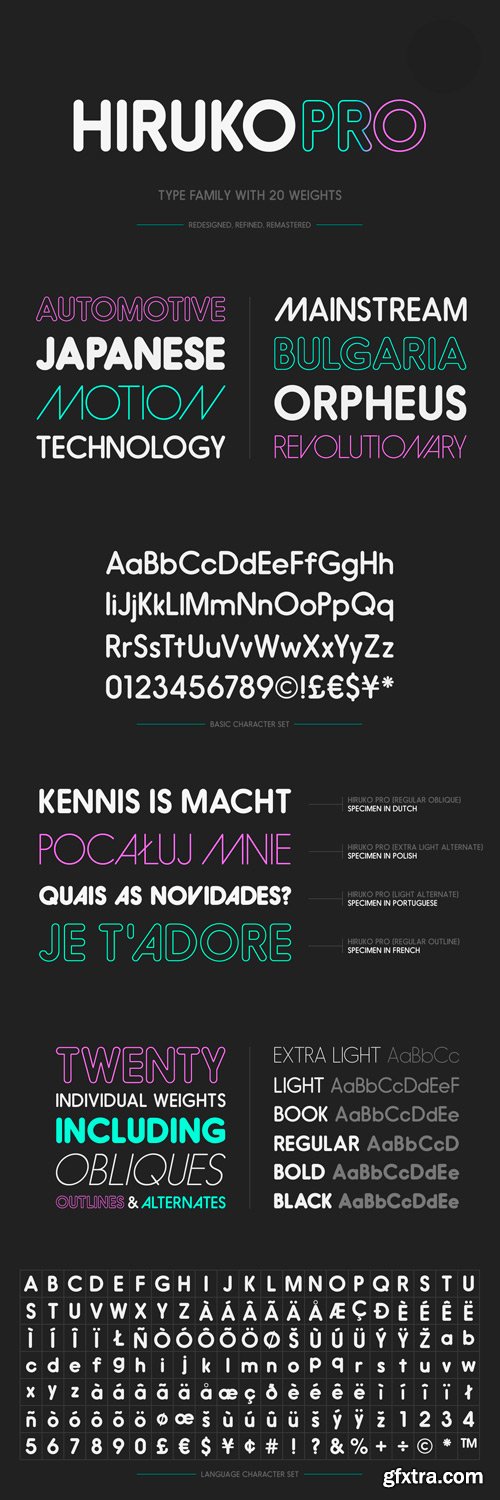
Hiruko Pro Font Family
Hiruko Pro is a brand new, improved version of our original release from back in 2008. We have made many improvements to the original family, which now includes a variety of redrawn characters, improved kerning, and 4 brand new weights to help give the overall family more balance. Hiruko Pro works well both as a headline and a text font, and it also renders nicely on the web. This type family has been produced to the highest standard, with each weight supporting 27 different languages. Hiruko Pro consists of 20 weights, ranging from Extra Light to Black.